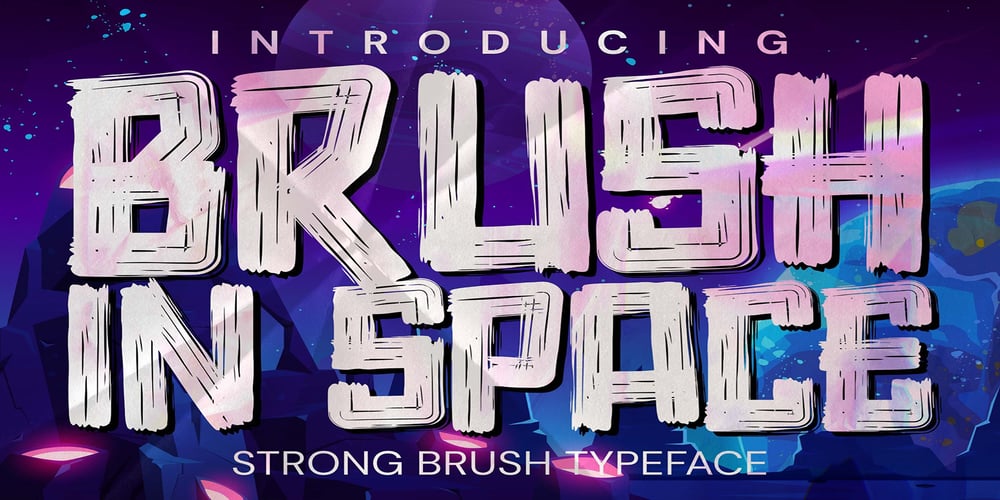
Brush In Space Font Family was designed by Abdul Malik Wisnu, Anang Fibriyanto and published by Gassstype. Brush In Space contains 2 styles and family package options. **Brush in Space** – Handwritten Brush font with a natural Rough style and comical type. Crafted manually with love and passion, This font is great for your next creative project such as logos, printed quotes, invitations, cards, product packaging, headers, Logotype, Letterhead, Poster, Label, Game project and etc.